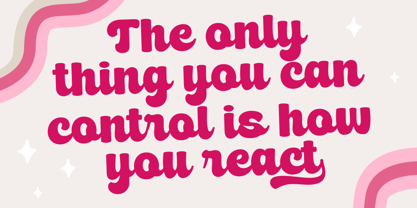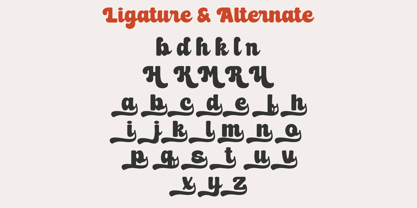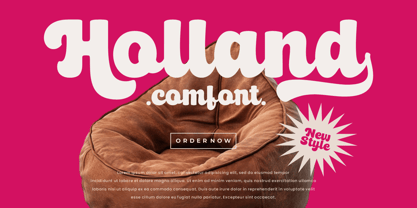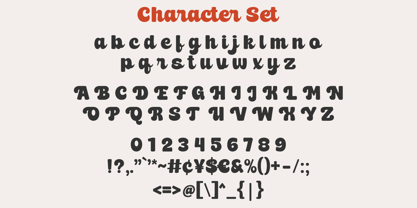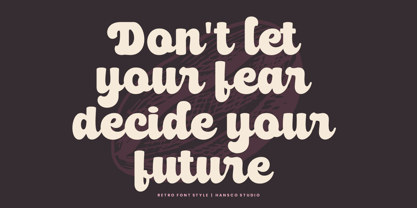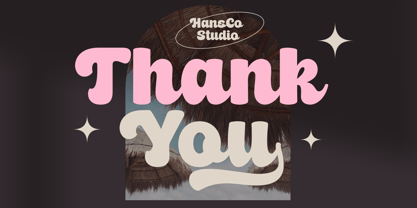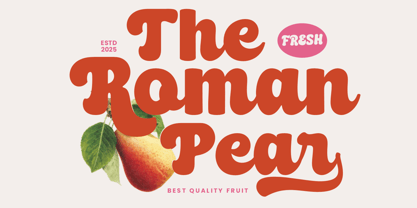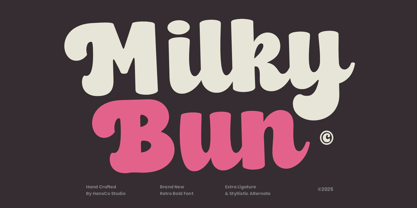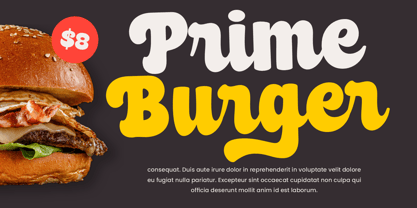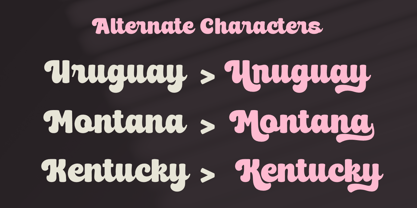
Milky Bun
La familia tipográfica Milky Bun fue diseñada por Burhan Afif y publicada por HansCo. Milky Bun contiene 1 estilos. Más información sobre esta familia
Milky Bun font is a bold retro font style with rounded touch. Equipped with all complete characters ranging from uppercase letters, lowercase letters, numbers, punctuation marks and multi-lingual support, this font is ready to be used in any project. Very suitable for logotype, Stickers, Packaging design, Cricut Project, headlines, brand identity, posters, magazines, books, YouTube, Instagram, websites, Canva, Corjl or any of your creative design projects. Use this Milky Bun font to add that special modern retro touch to any design idea you can think of!
• Uppercase & Lowercase
• Numbers & Punctuation
• Multilingual
• Alternate Character